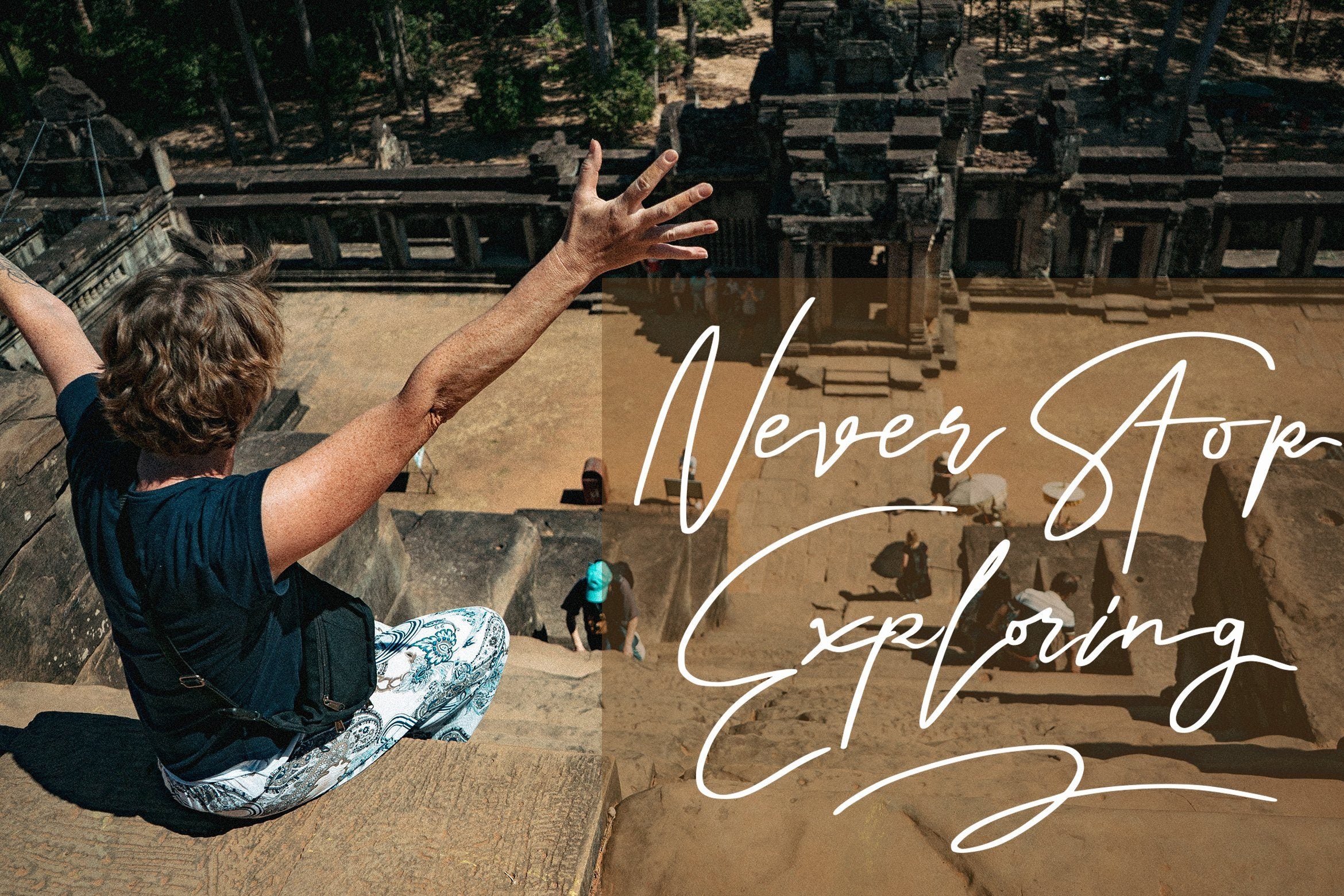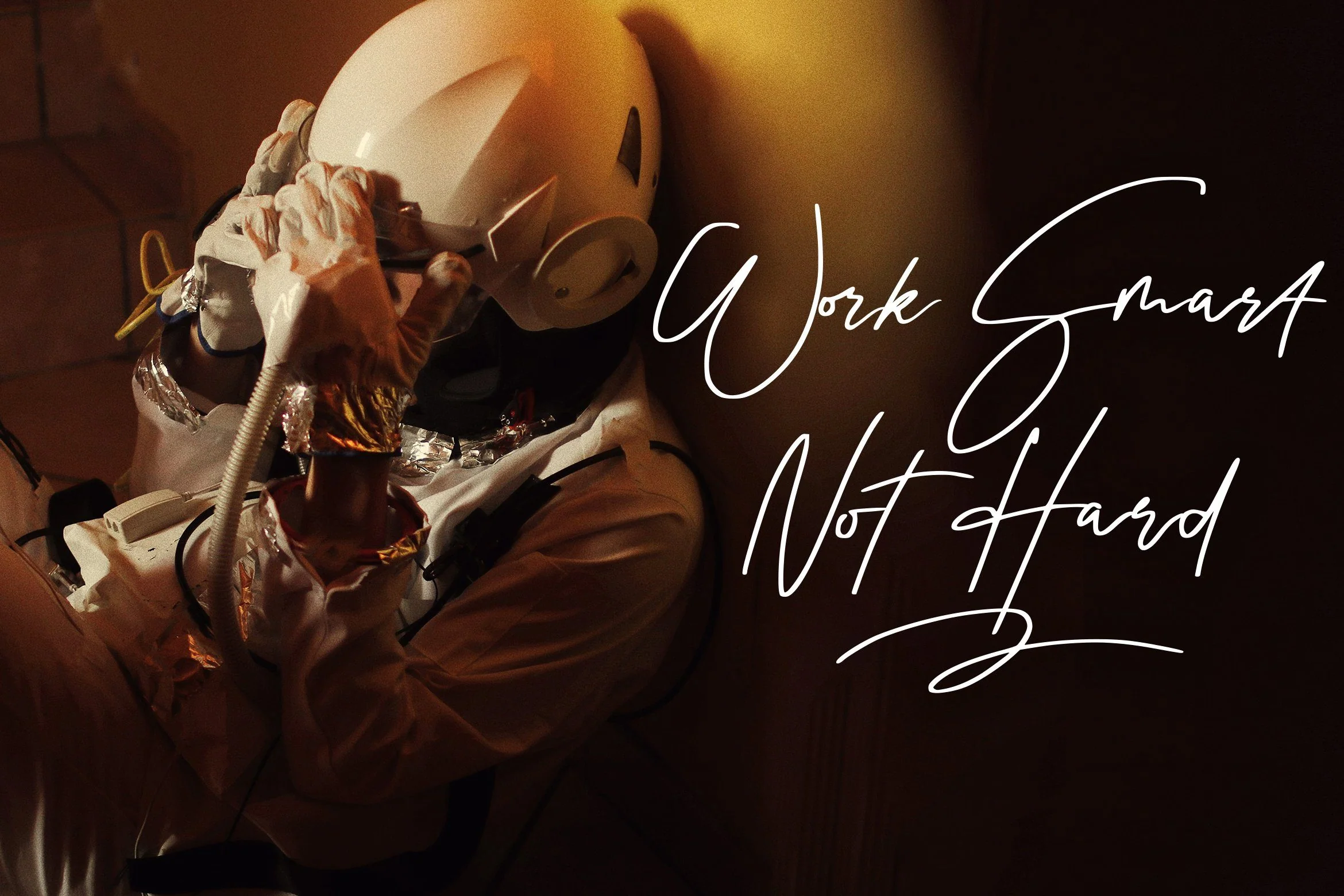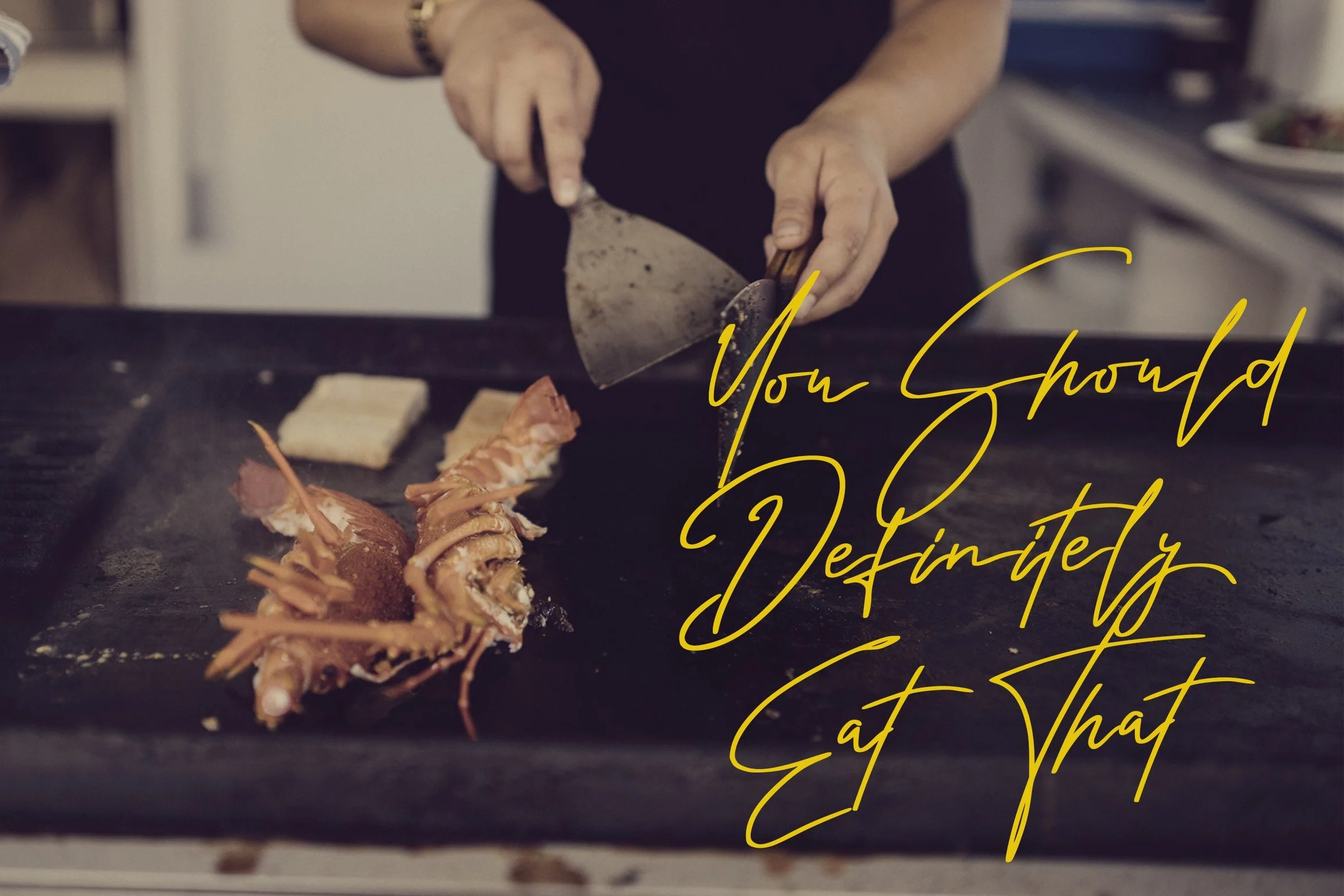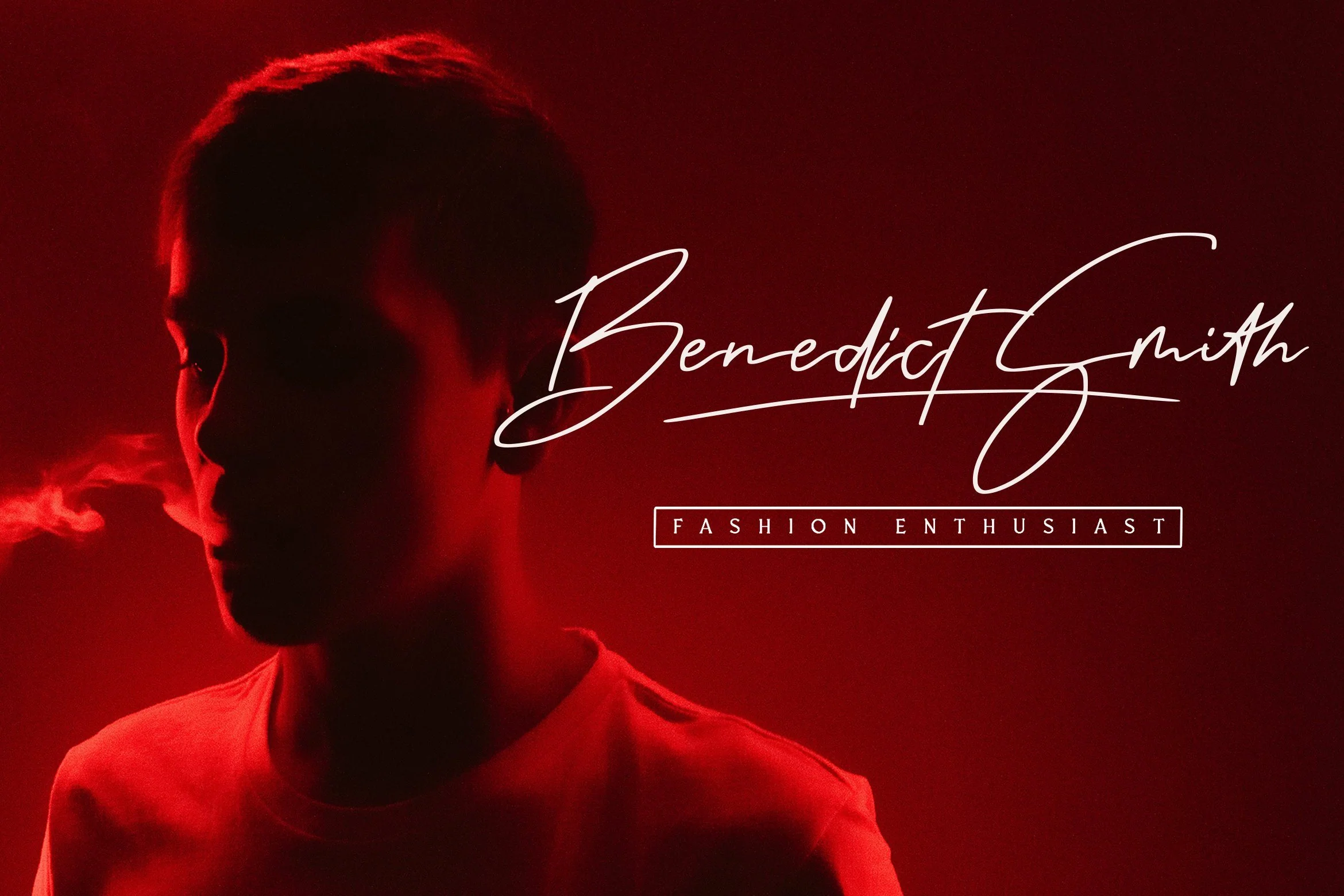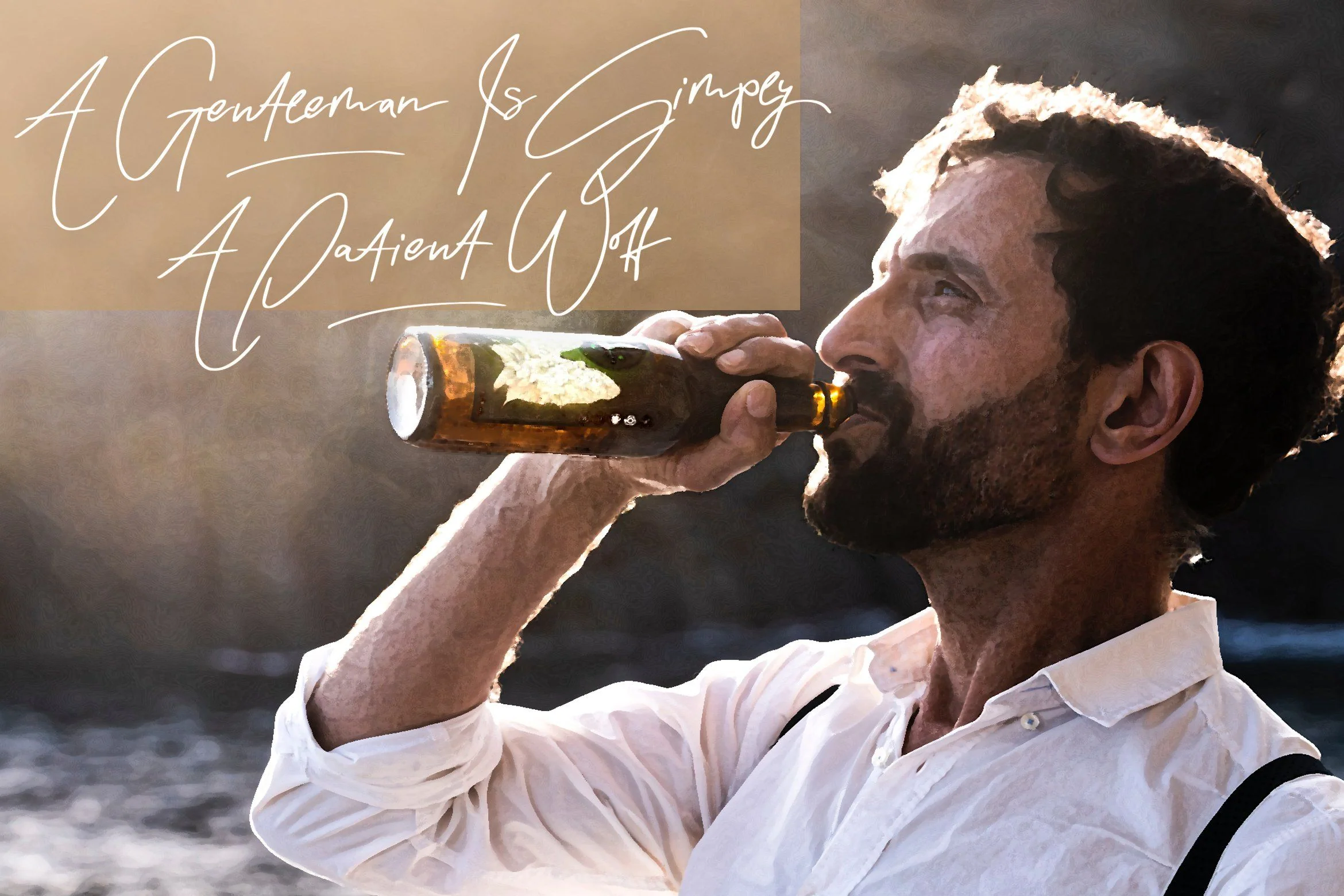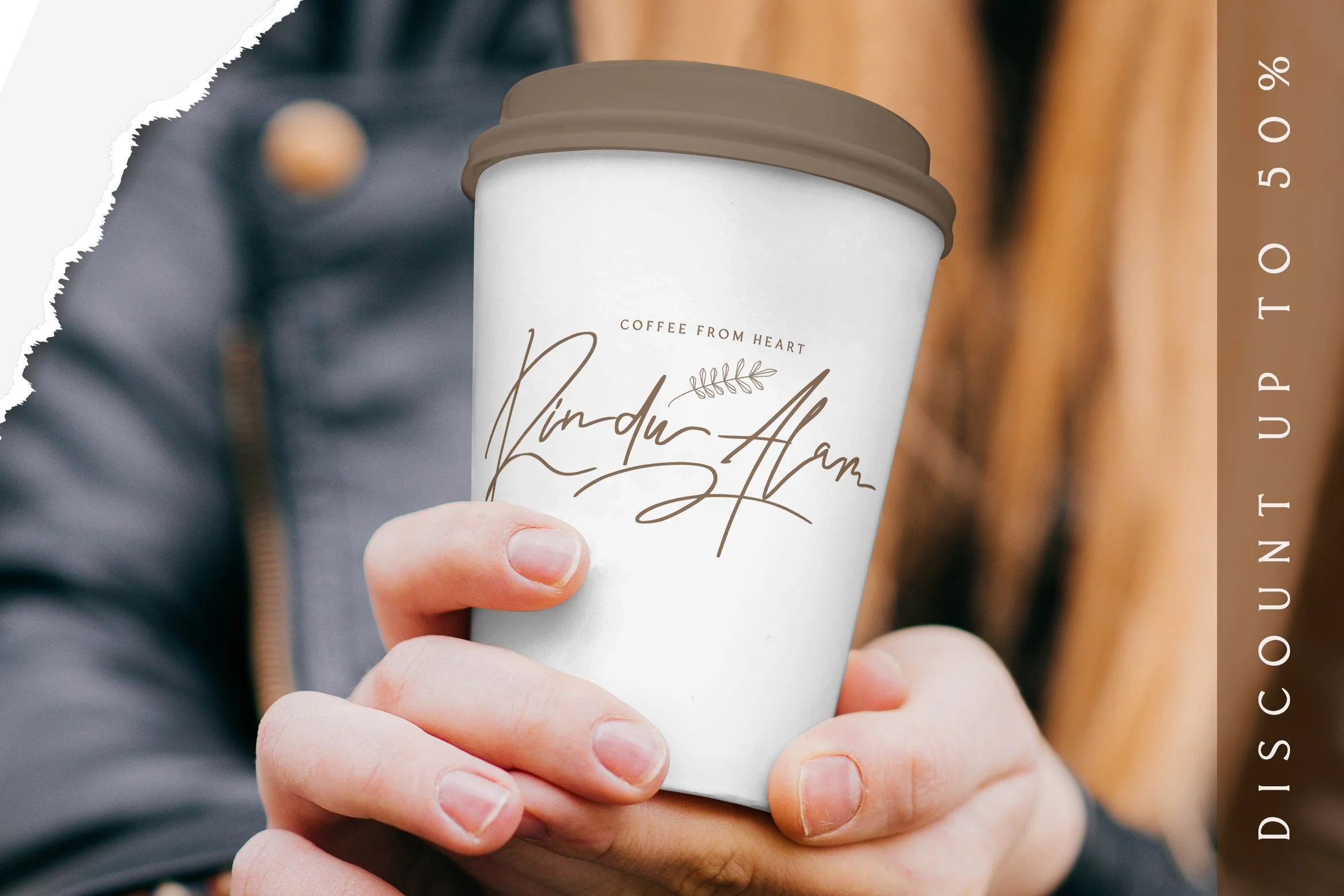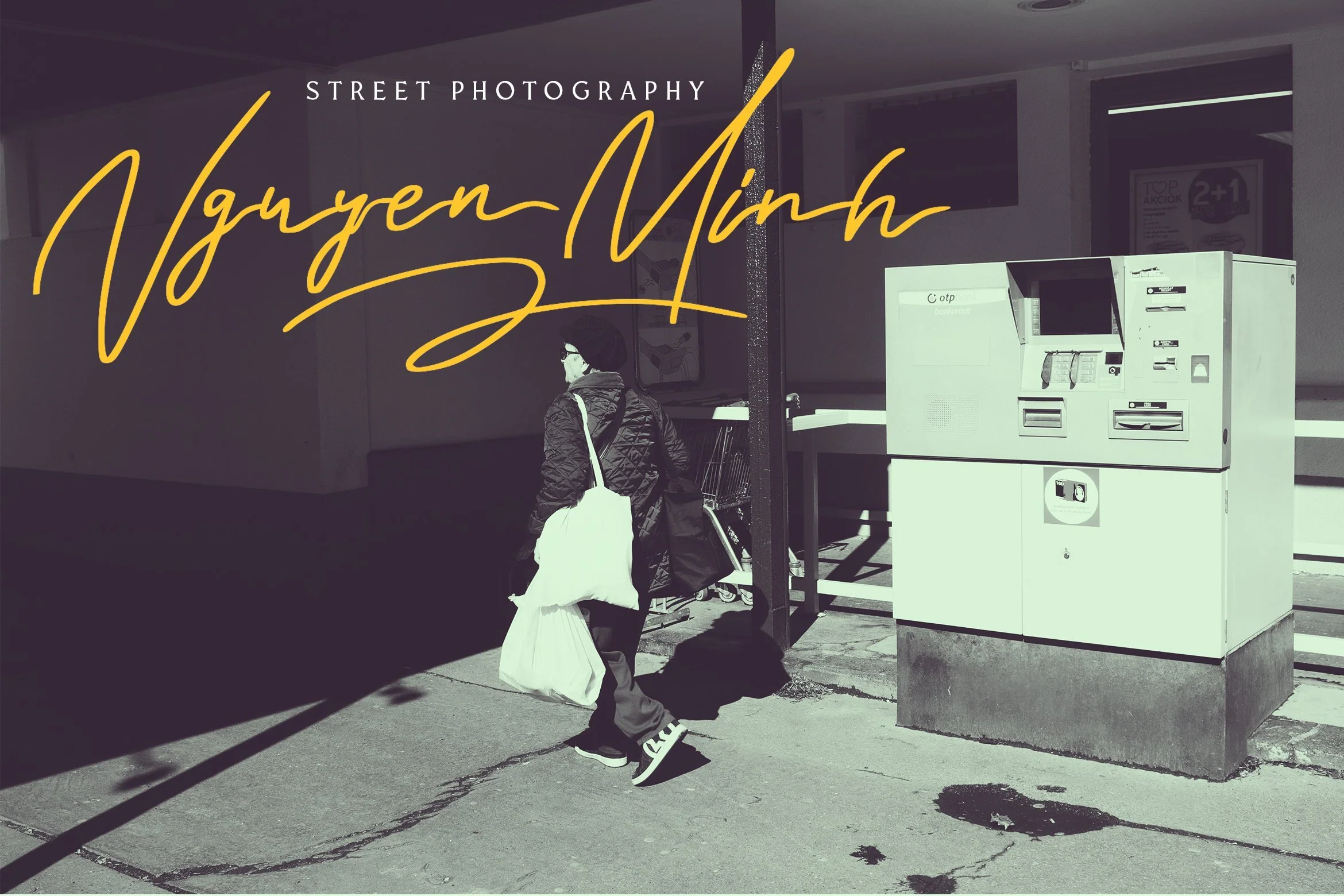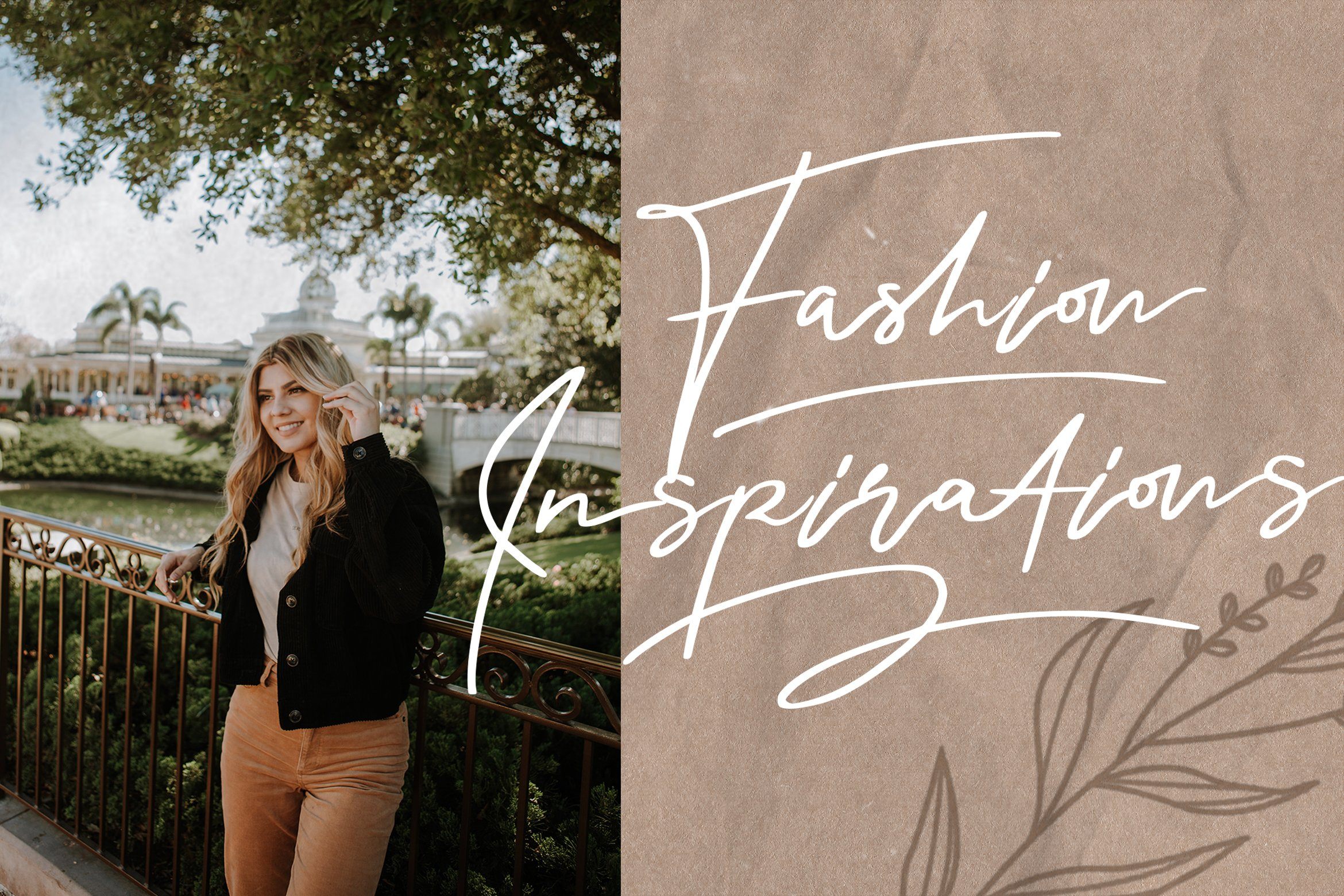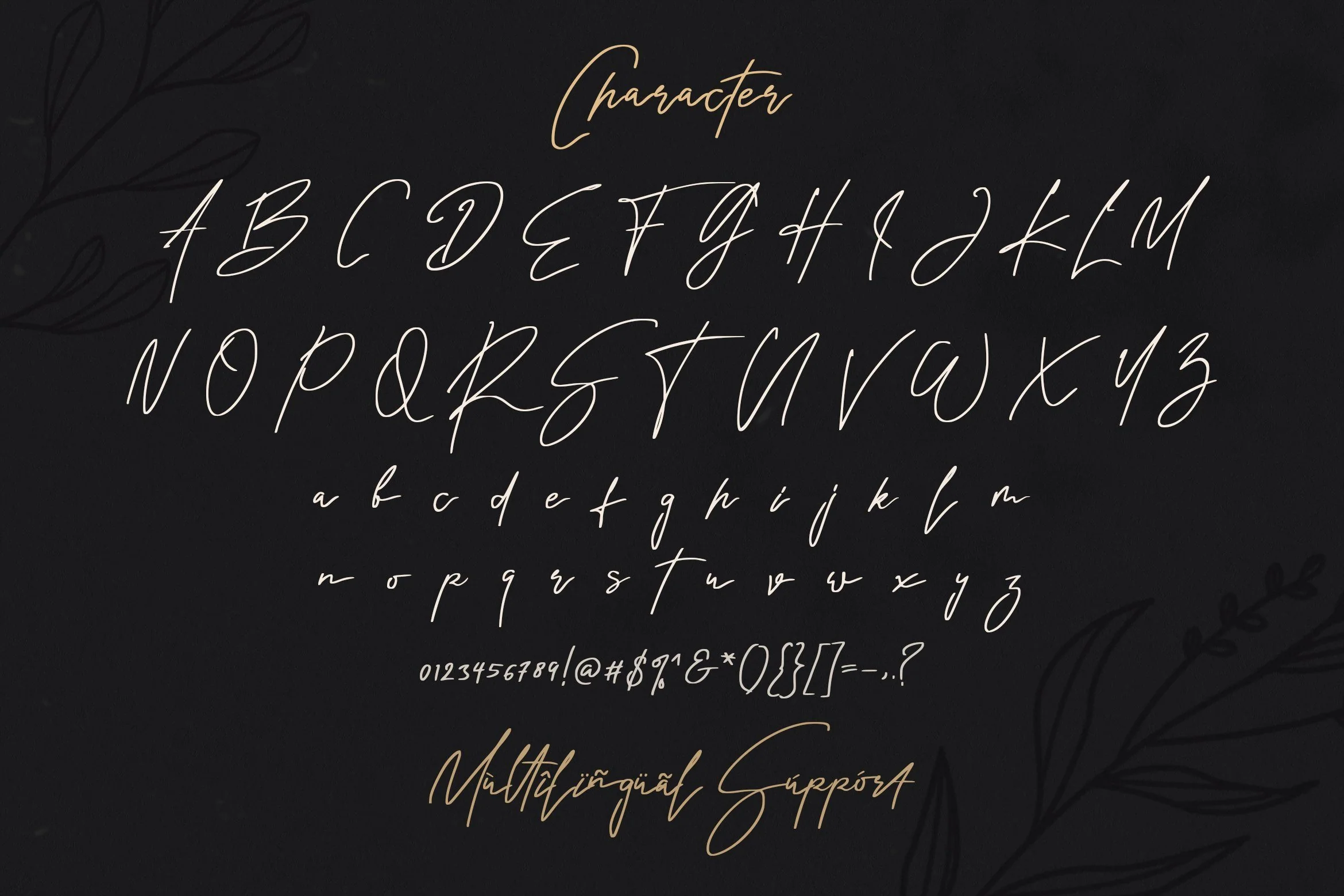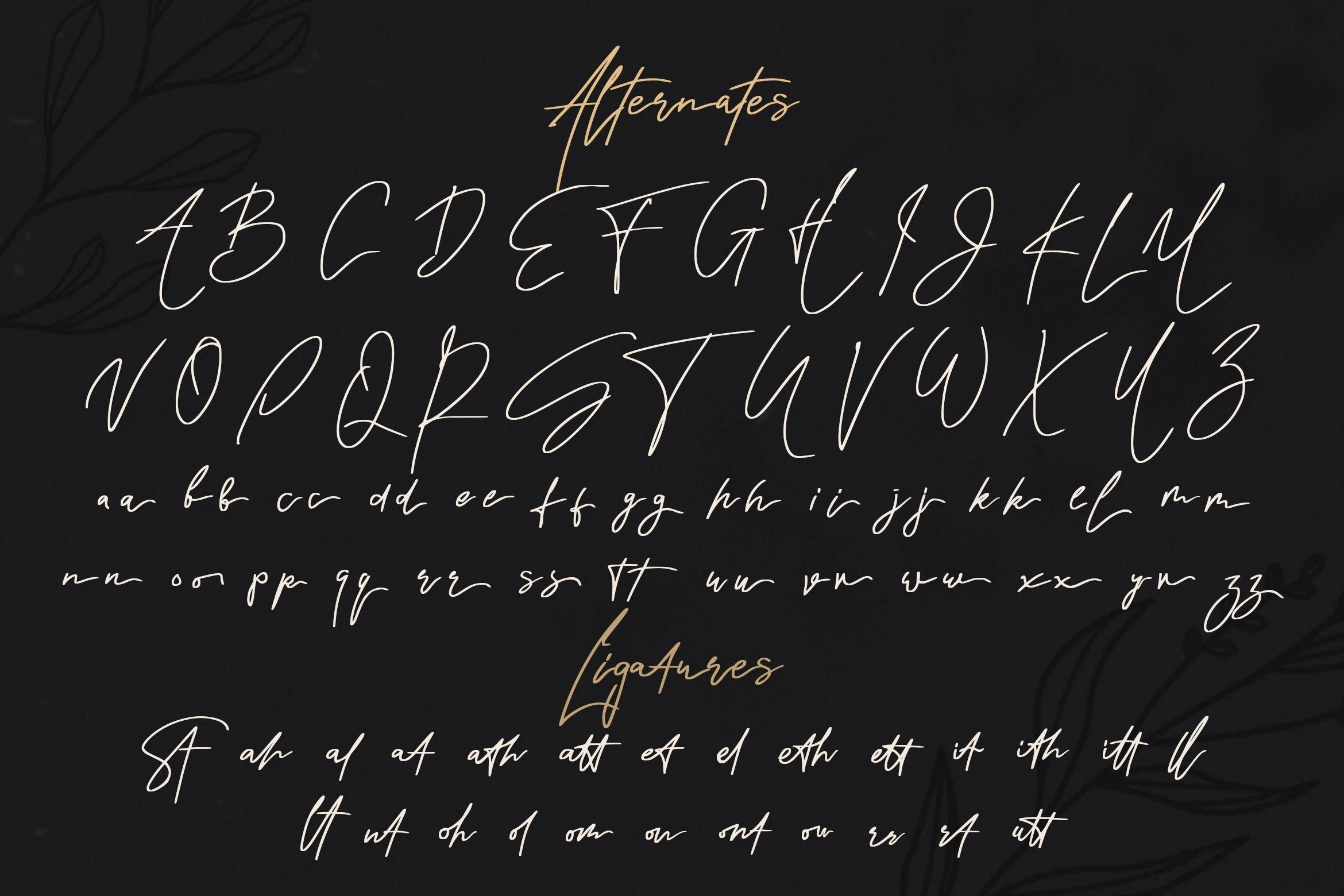
Rindu Alam - Signature Script Font
Introducing Rindu Alam - Signature Script Font
Rindu Alam is a Signature Script Font with Modern Style. This font is perfect for fashion brand, wedding invitation, business card, logo brand, signature, and also calligraphy.
This Font Template contains Classy, Elegant, Creative, Cool and has a Unique Concept.
- Swash
Introducing Rindu Alam - Signature Script Font
Rindu Alam is a Signature Script Font with Modern Style. This font is perfect for fashion brand, wedding invitation, business card, logo brand, signature, and also calligraphy.
This Font Template contains Classy, Elegant, Creative, Cool and has a Unique Concept.
- Swash